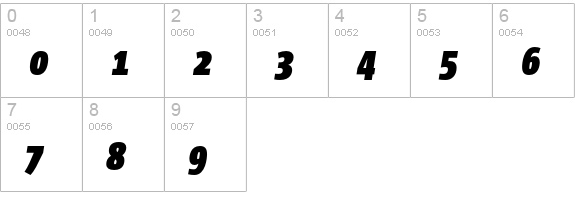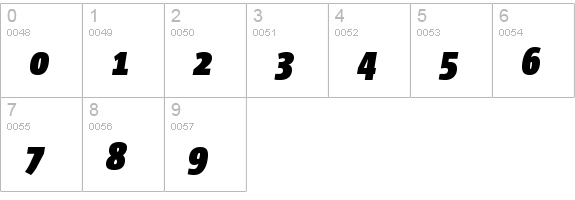
Corpid Cd Black Italic Font Details
Corpid Cd Black Italic is a maximum-weight, dramatic, italic variant in the Corpid typeface family \xE2\x80\x94 well suited to maximum-impact headlines, posters, and packaging.
Corpid Cd Black Italic exudes elegance and sophistication with its sleek and modern design. The bold, striking appearance of this font makes it perfect for creating eye-catching headlines and titles. The italicized style adds a touch of flair, making your text stand out even more. What's even better is that Corpid Cd Black Italic is available for free download at FontsMarket.com. This means you can easily access this stylish font for all your design projects without any cost. Whether you're designing a logo, poster, or website, Corpid Cd Black Italic is sure to make a bold statement and elevate your design to the next level. Download it today and add a touch of class to your creations!